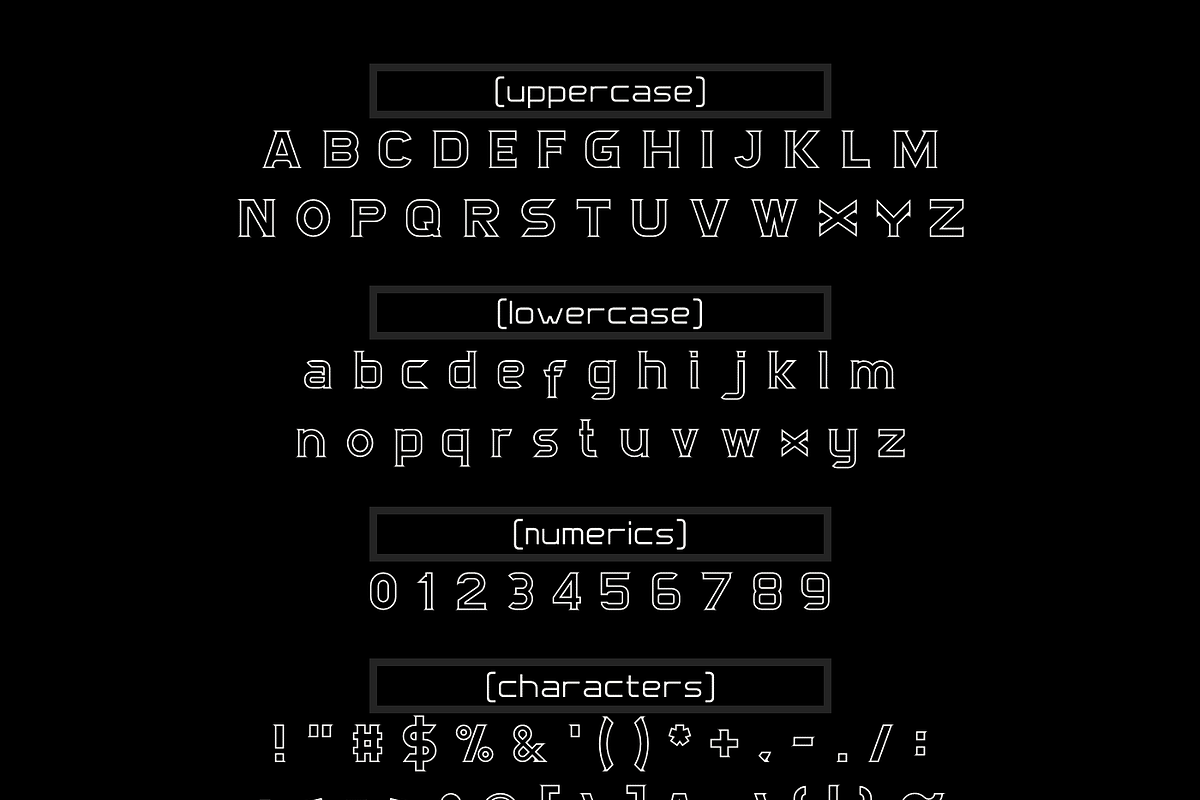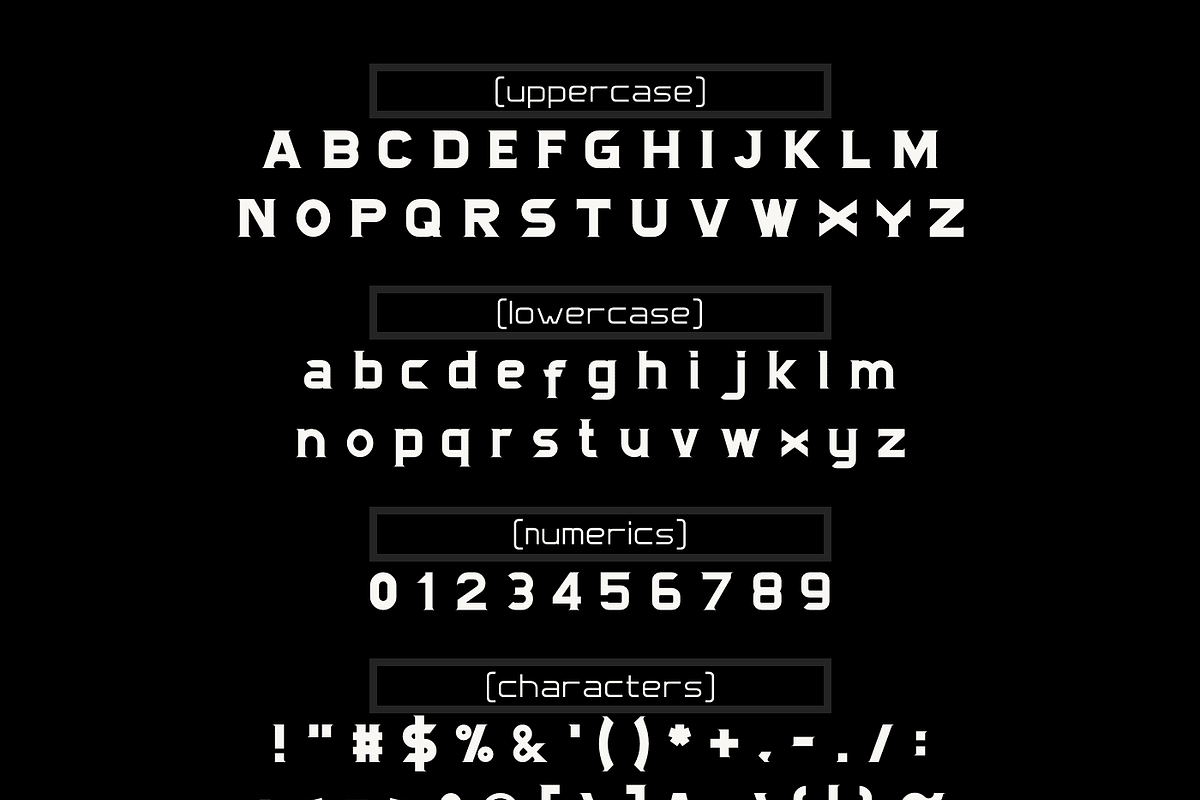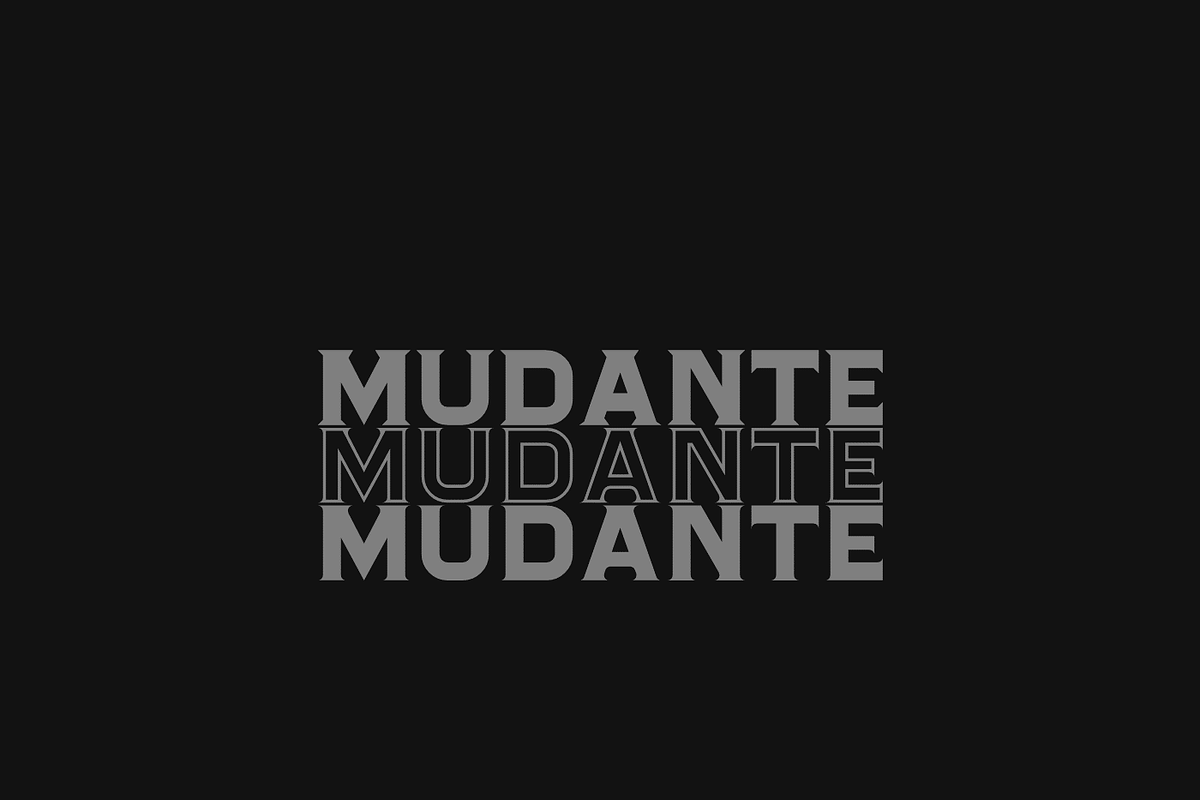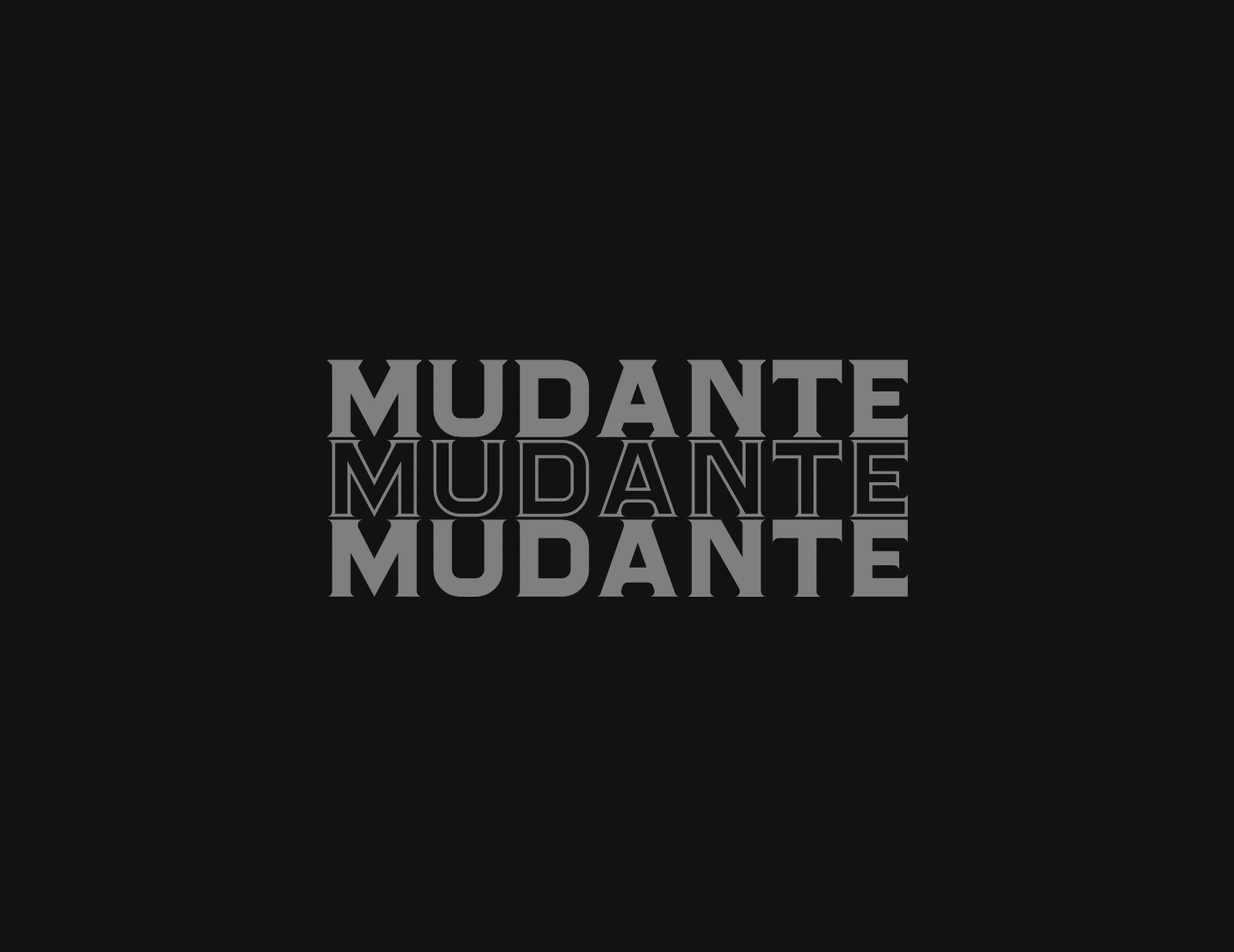
mudante series font
Mudante font refers to a typeface that draws inspiration from traditional gothic letterforms but incorporates modern design elements. The term is often used broadly, and different designers or foundries may interpret it in various ways.
Typeface are typically sans-serif, meaning they lack the small decorative strokes at the ends of characters that are characteristic of traditional gothic fonts.
Characters, often feature clean lines and geometric shapes, contributing to a contemporary and minimalist appearance.